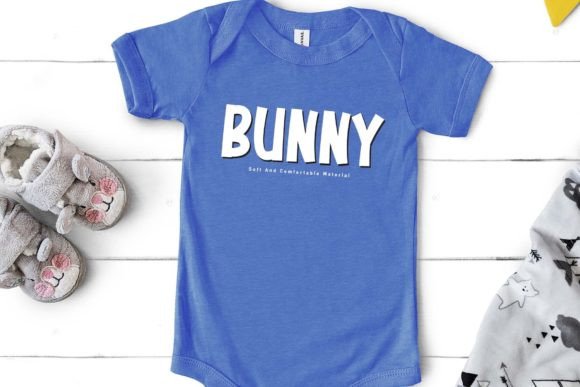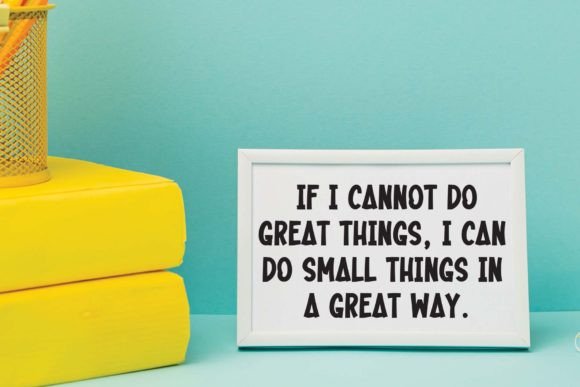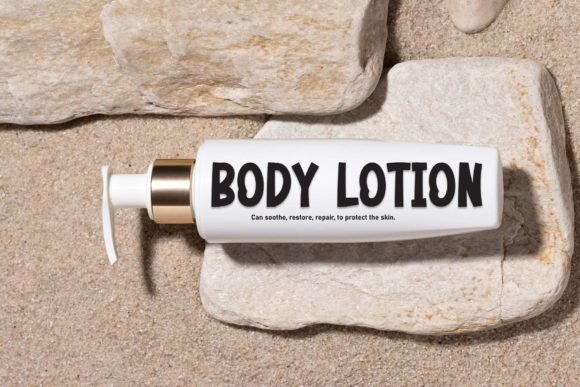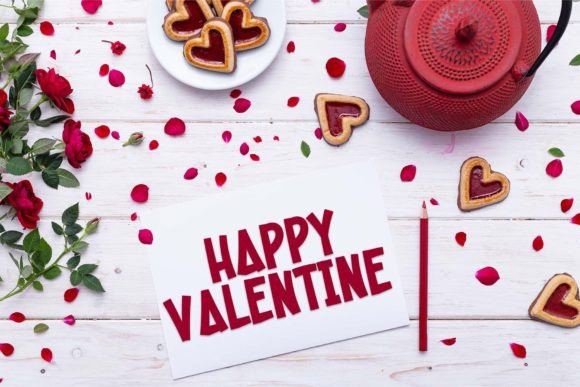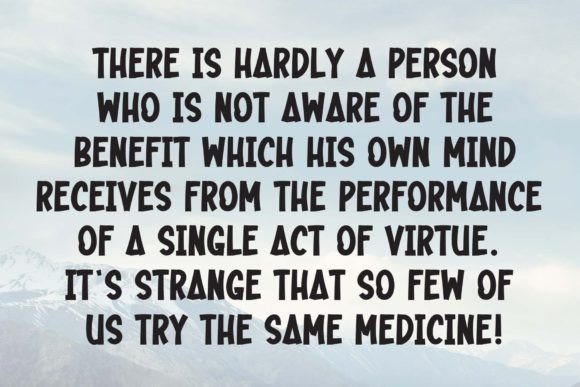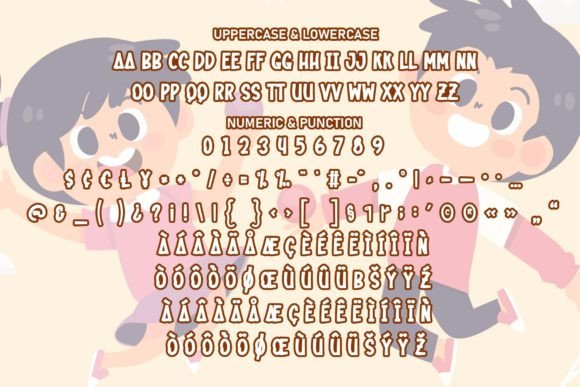
Introduction to Kids Cartoon Font
Remember when you were a kid and spent hours watching your favorite cartoons, mesmerized by the colorful characters and fun storylines? As a designer, you can tap into that same sense of wonder and excitement with the Kids Cartoon Font.
This high-quality display font is designed to bring a smile to the faces of both kids and adults alike, making it the perfect addition to any creative project. With a free download available, you can get started on your next design right away.
Whether you’re working on a children’s book, a marketing campaign, or a fun social media graphic, the Kids Cartoon Font is a valuable resource that can help you add a touch of whimsy and personality to your designs. And with a transparent background option, you can easily integrate it into your design workflow without any hassle.
Key Features of Kids Cartoon Font
- High-quality, vector-based design for crisp and clear visuals in various resolutions.
- Transparent background option for easy layering and customization in design projects.
- Designed specifically for kids’ content, this font features playful and colorful characters that are sure to delight young audiences.
- Perfect design resource for illustrators, designers, and artists working on children’s content, educational materials, and family-friendly projects.
Honest Review: Kids Cartoon Font
I recently stumbled upon the Kids Cartoon Font and was excited to give it a try. As a designer, I’m always on the lookout for unique and high-quality fonts that can elevate my creative project. The Kids Cartoon Font is a free download, which was a major plus for me.
Here are some things that work well with the Kids Cartoon Font: ✨
- Playful and fun design that’s perfect for kids’ content
- Includes a transparent background, making it easy to use in various design scenarios
- Great for creating engaging titles and headings in kids’ cartoons, educational materials, and children’s books
However, I did encounter some limitations with the Kids Cartoon Font: ⚠️
- Limited character set, which may not be ideal for longer texts
- Not suitable for formal or professional designs
Overall, the Kids Cartoon Font is a fun and creative design resource that’s perfect for kids’ content and educational projects. While it may have some limitations, it’s a great addition to any designer’s toolkit. I’d definitely recommend it for any creative project that requires a playful and engaging font.
For the most out of Kids Cartoon Font, use it in projects that require a playful and child-friendly tone. This font is perfect for birthday invitations, children’s book illustrations, and educational materials. Remember to experiment with different font sizes and styles to achieve the desired effect.